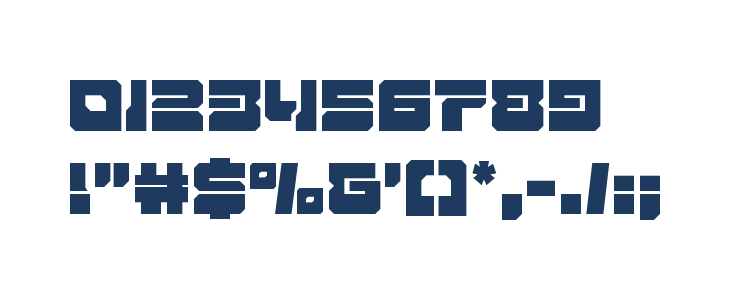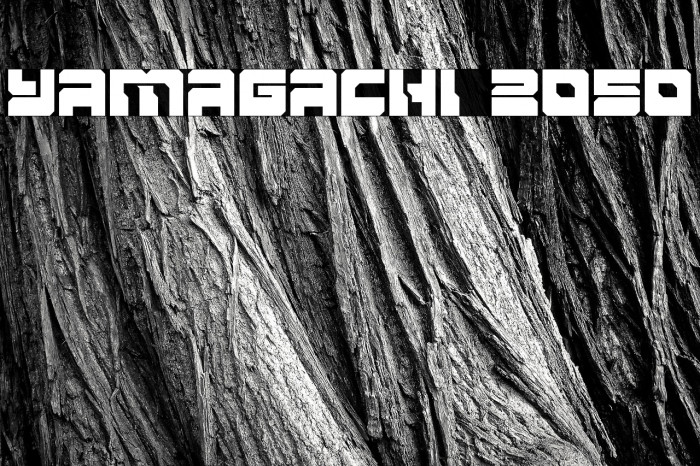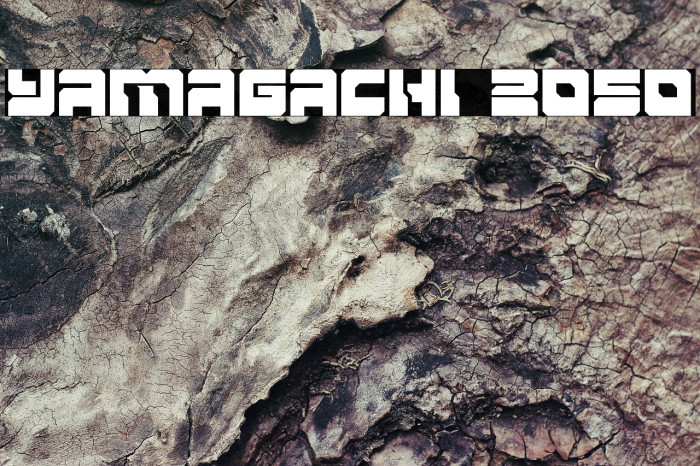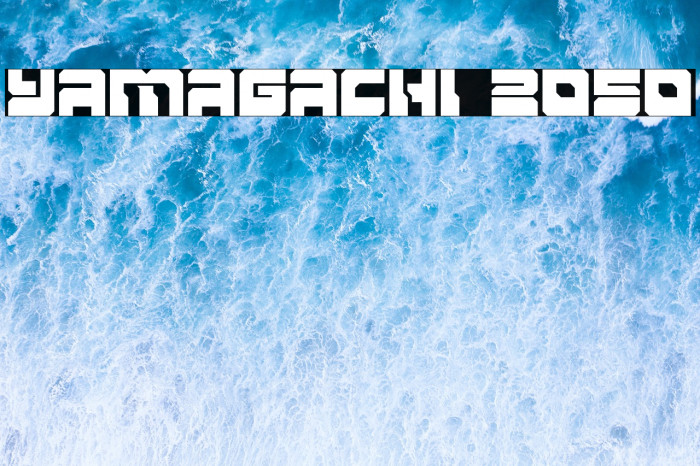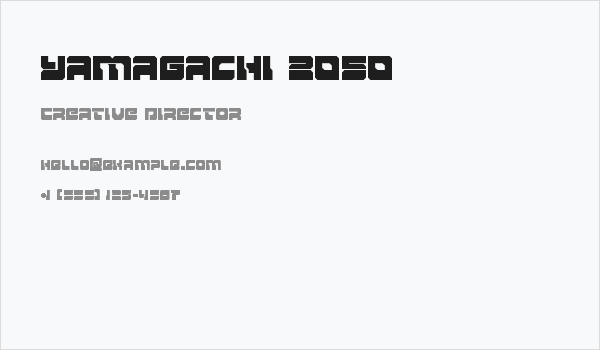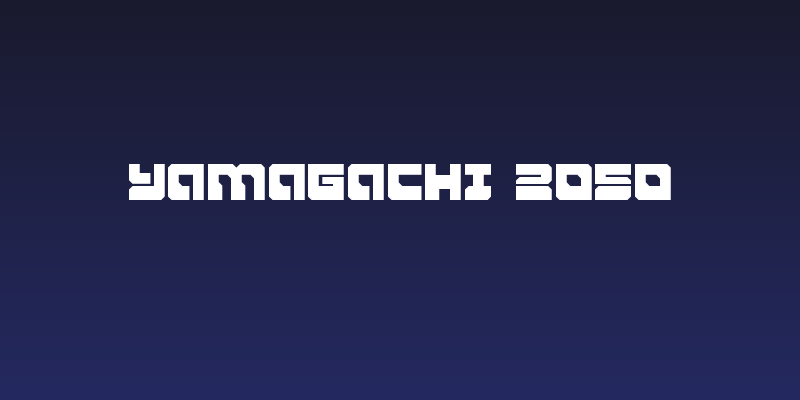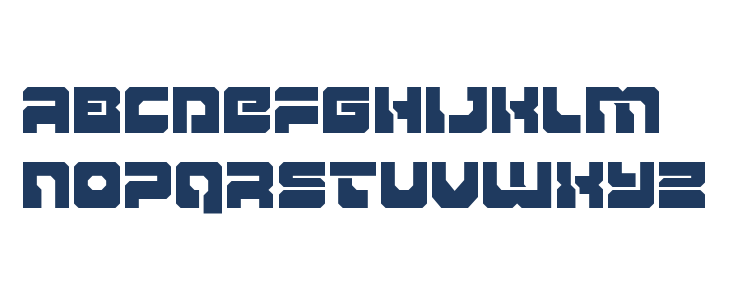
Yamagachi 2050 Font
Yamagachi 2050 Description
This font features a bold, futuristic design with a strong geometric structure. The characters are blocky and angular, with a consistent thickness throughout, giving it a robust and industrial feel. The uppercase letters are particularly striking, with sharp edges and a uniform height that creates a cohesive look. The lowercase letters maintain the same boldness, ensuring readability while adding a unique flair. Numbers and special characters follow the same design principles, making them easily recognizable and visually compatible with the letters. The overall style is modern and tech-inspired, suitable for projects that require a contemporary and edgy aesthetic.
| Proposed Projects | Ideal for technology branding, video game titles, sci-fi movie posters, and modern digital interfaces. |